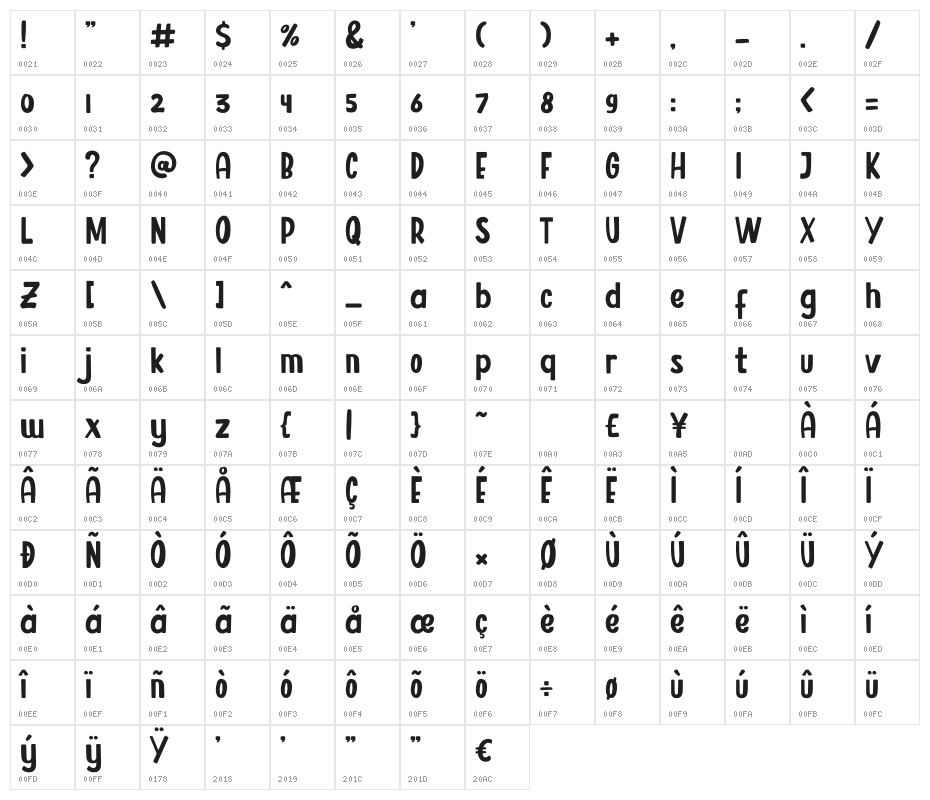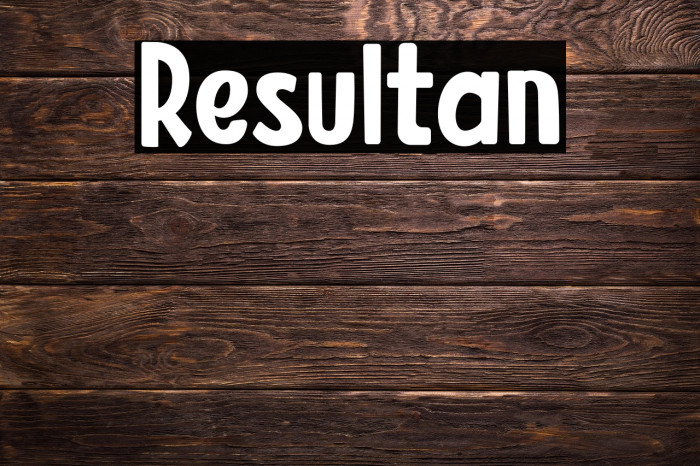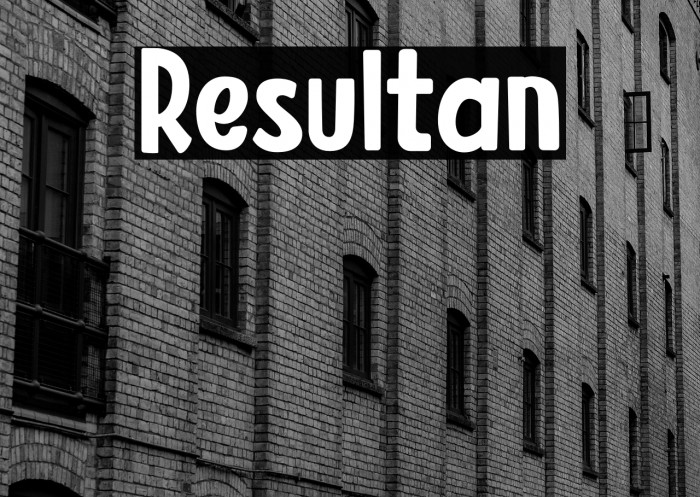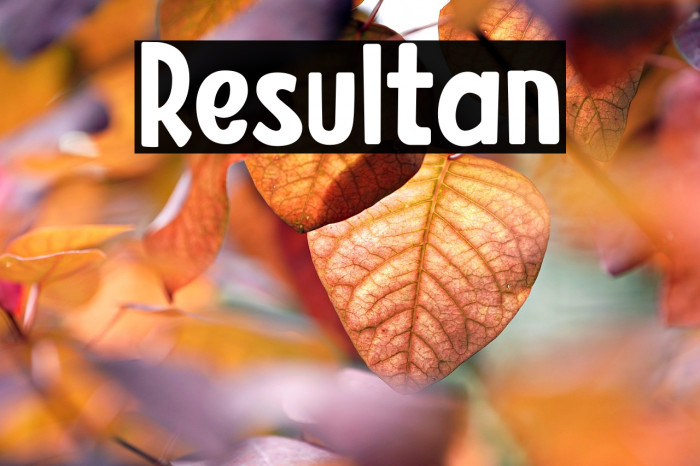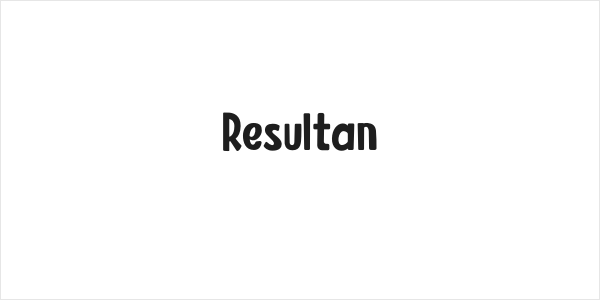
Resultan Font
Resultan Description
This font features a playful and bold style with rounded edges and a slightly irregular form, giving it a hand-drawn appearance. The uppercase letters are tall and prominent, while the lowercase letters maintain a consistent height, creating a harmonious balance. The numerals are bold and easily readable, matching the overall aesthetic of the alphabet. Special characters are included, maintaining the same playful and bold characteristics. The font's design is suitable for projects that require a friendly and approachable feel, making it ideal for children's books, casual branding, or creative posters.
Overall StylePlayful, Hand-drawn
Proposed ProjectsIdeal for children's books, casual branding, creative posters, and playful designs.